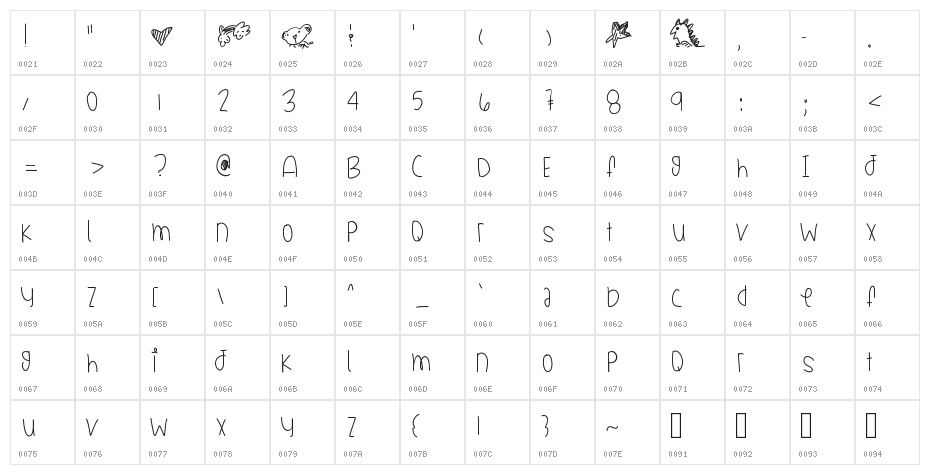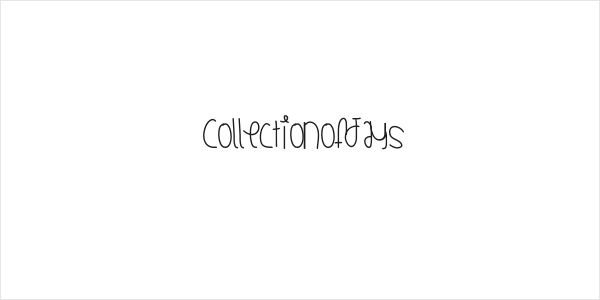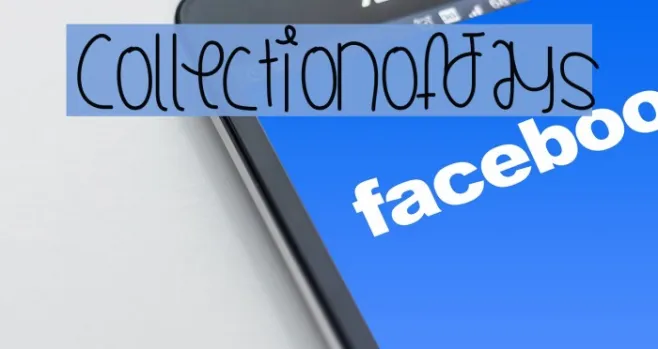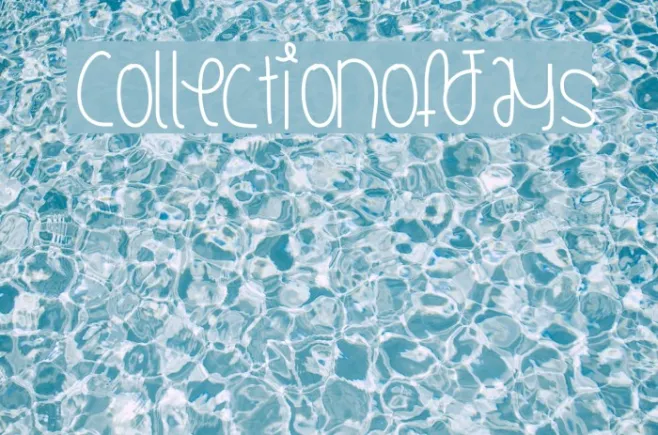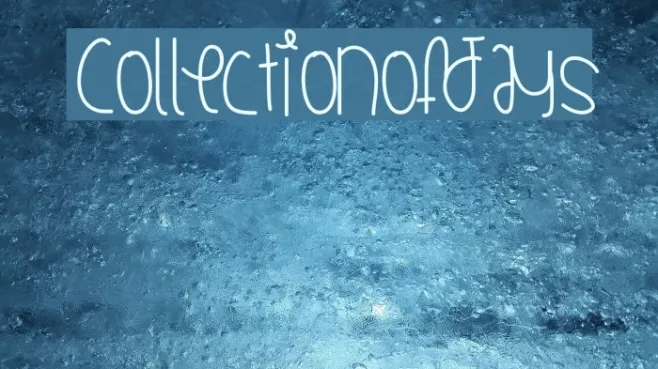
CollectionOfJays Font
CollectionOfJays Description
This playful and whimsical font features a handwritten style with a unique and quirky character design. The letters are tall and narrow, with a consistent stroke width that gives it a clean and modern appearance. The uppercase and lowercase letters maintain a cohesive look, while the numbers and special characters add a touch of fun with their creative shapes. The font's informal and friendly vibe makes it ideal for projects that require a personal touch or a sense of humor.
| Use Case | Logos, Headlines, Informal Text |
| Proposed Projects | Ideal for children's books, greeting cards, playful branding, and casual invitations. |